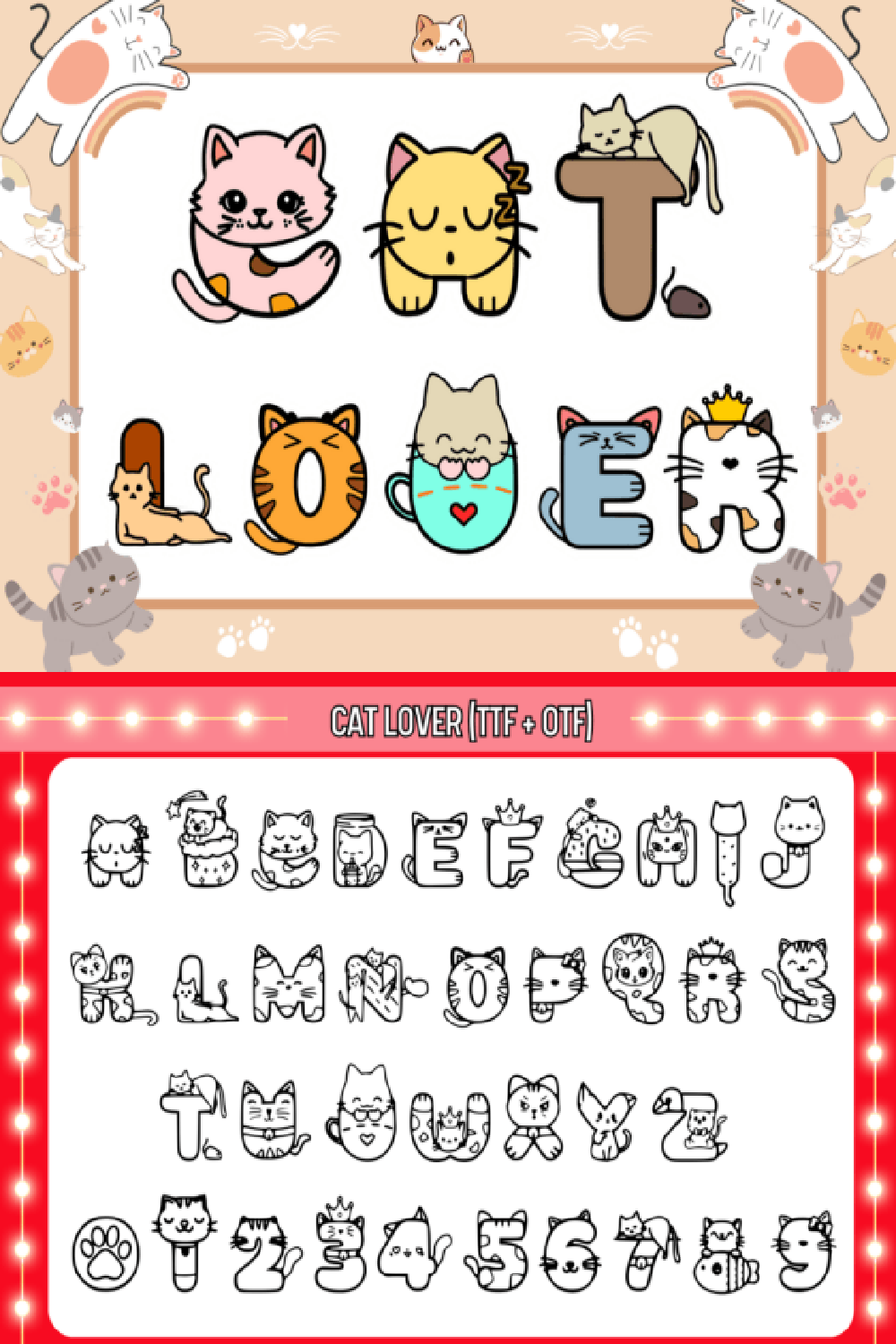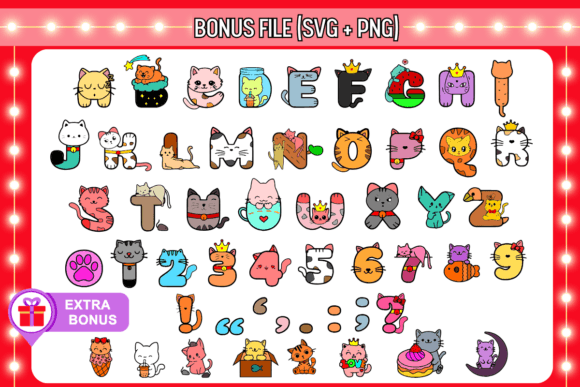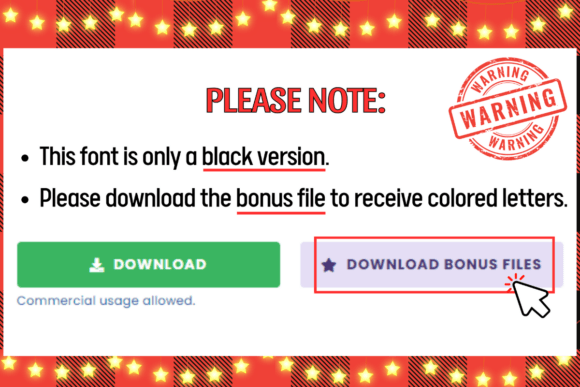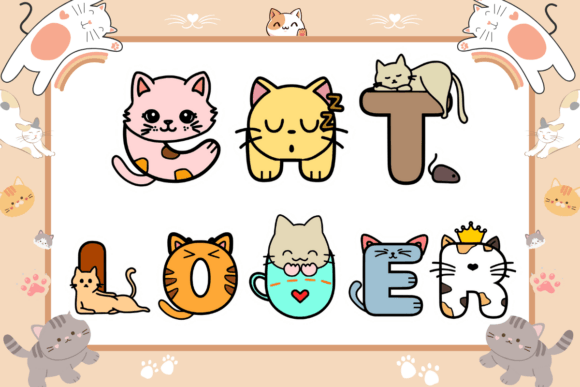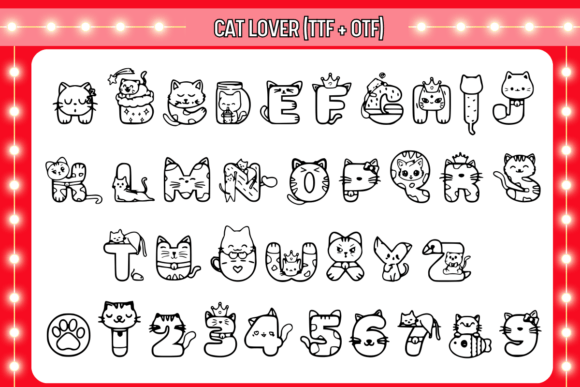
About the Cat Lover Font
Let us introduce you to Cat Lover Font, where timeless design meets modern craftsmanship. Cat Lover is a playful decorative font where each letter is creatively shaped from cute, tiny cats, making it perfect for any feline fan!